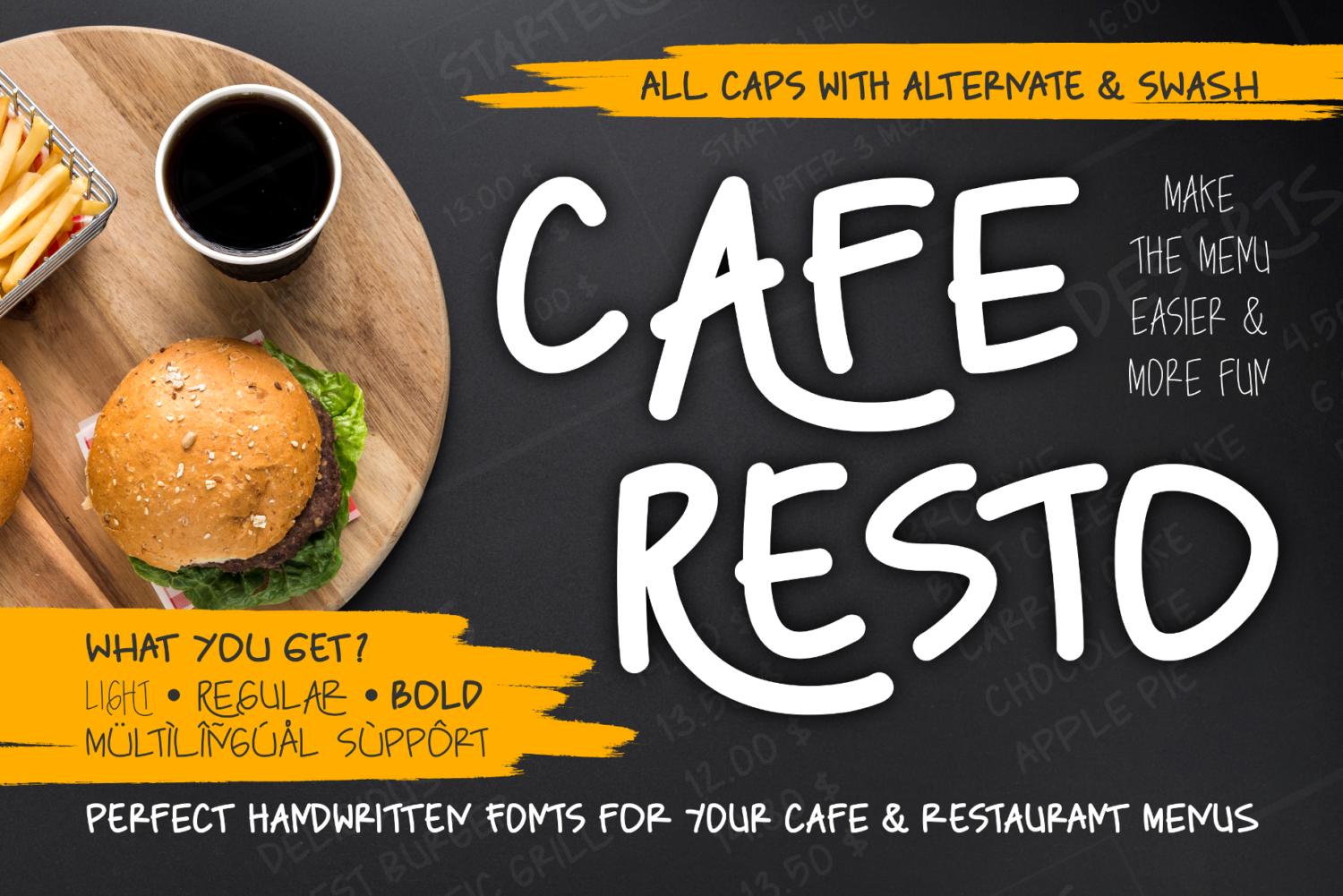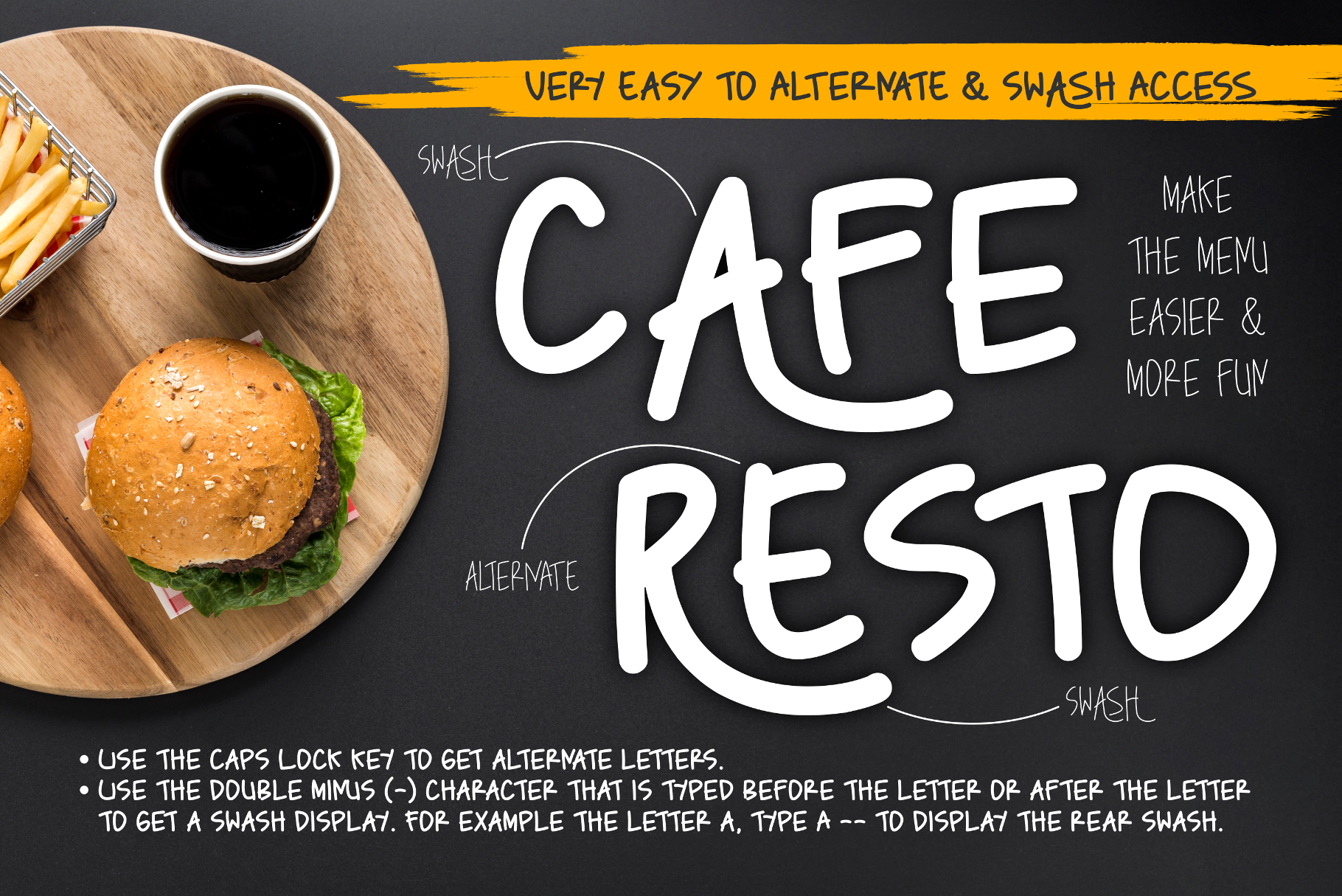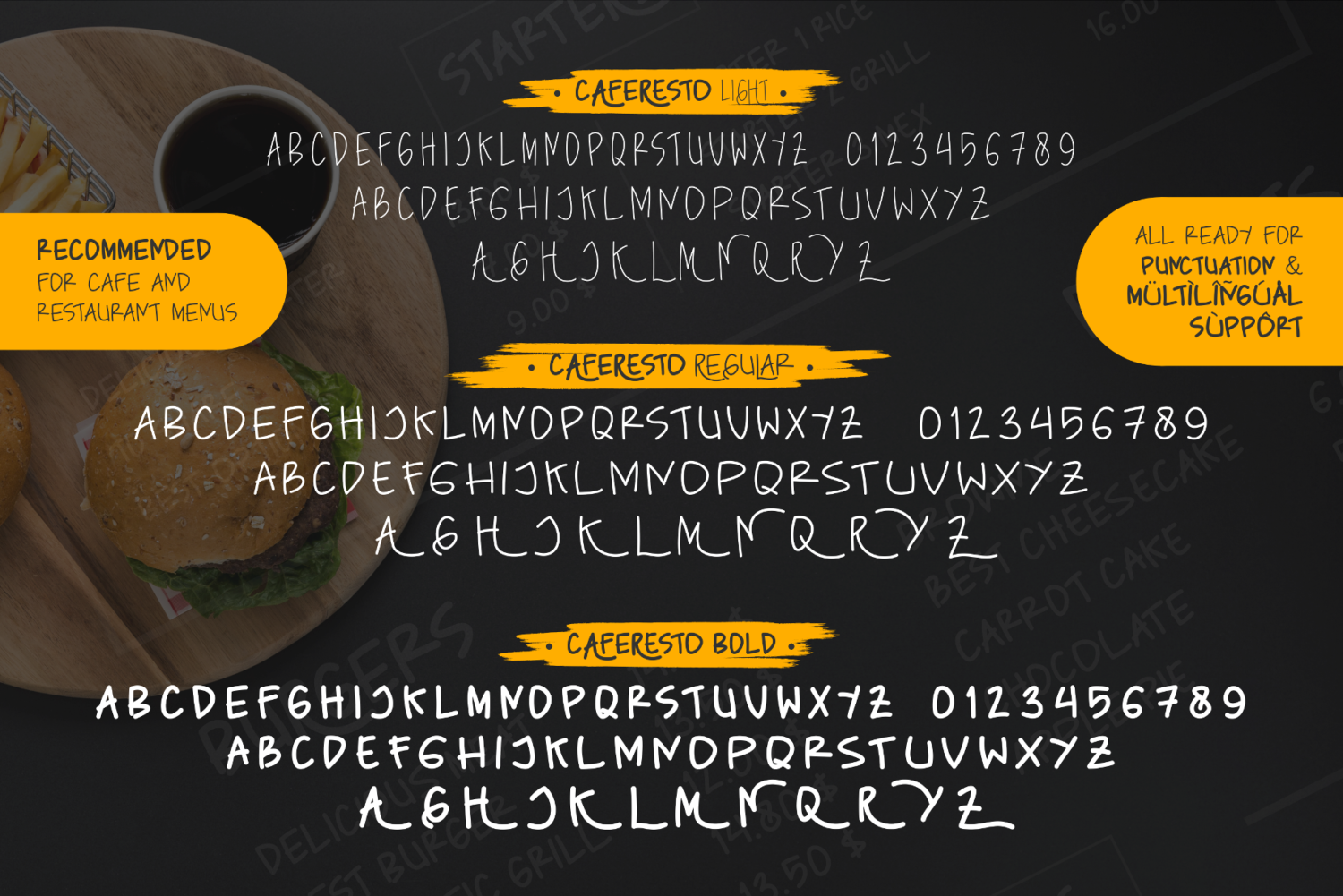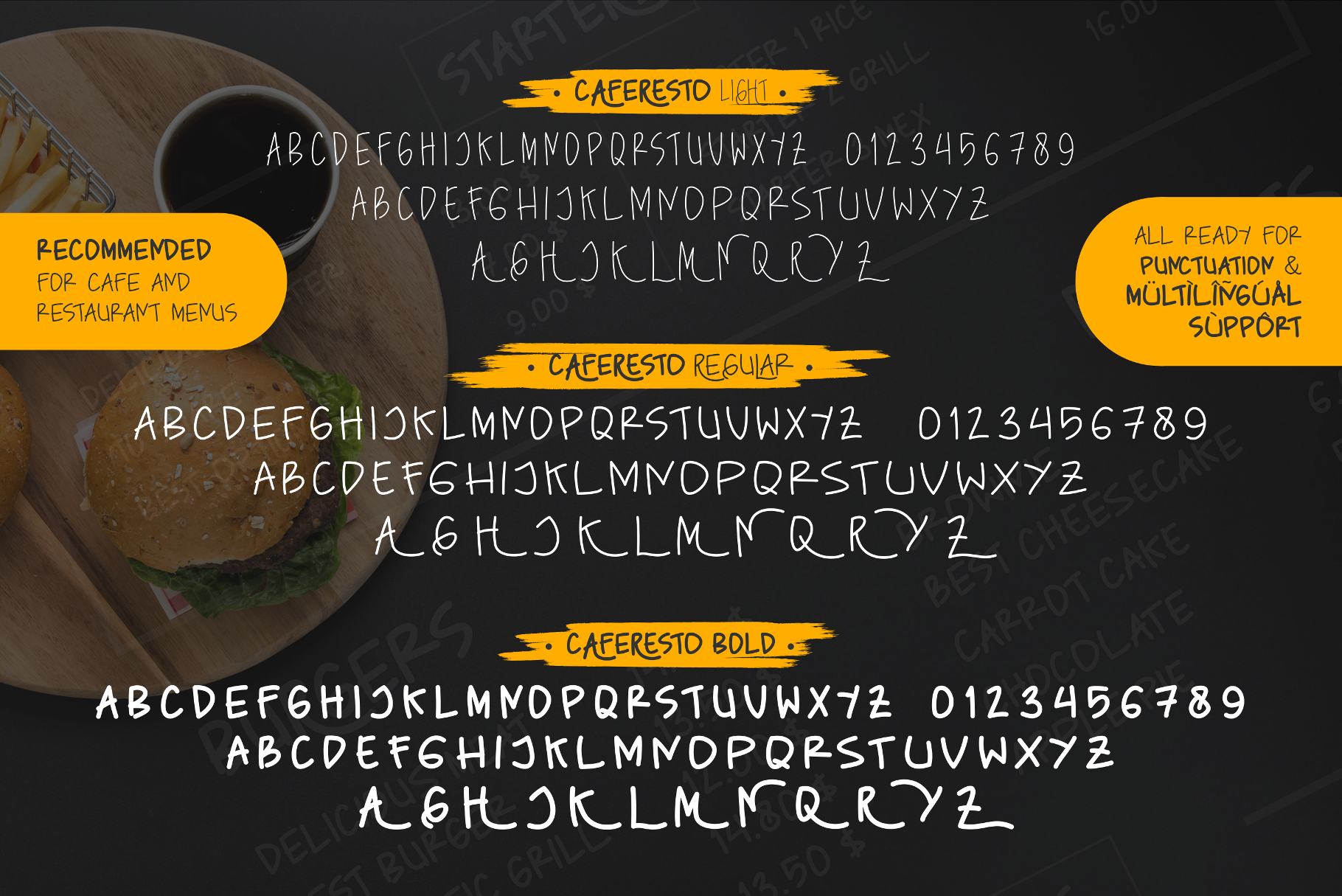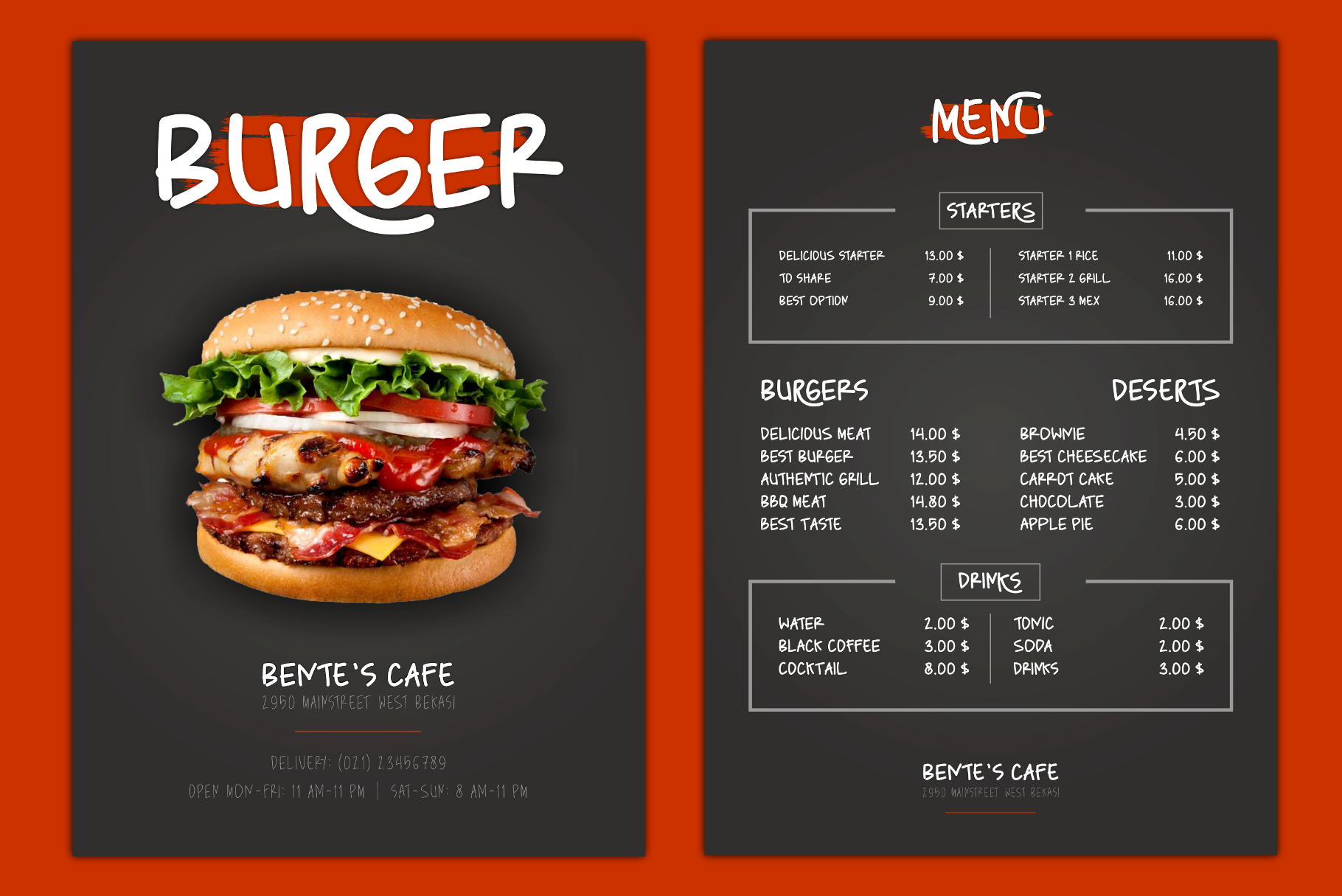
Caferesto Free Font
Caferesto Free Font is a cute and casual handwritten font with an incredibly friendly feel. Whether you’re looking for fonts for Instagram or calligraphy scripts for DIY projects, this font will turn any creative idea into a true piece of art. Caferesto is a recommended new font for cafe & restaurant menus with a pleasant handwriting style. This font is a font package that consists of three font types at once namely Caferesto Light, Regular Caferesto, and Caferesto Bold. This amazing font has alternatives in each letter, beautiful swash, and multilingual support. Perfect too for your creative cafe & restaurant menu design project this season. This free typeface was designed by a talented Arukidz Fl. If you like it don’t forget to check out the full version.